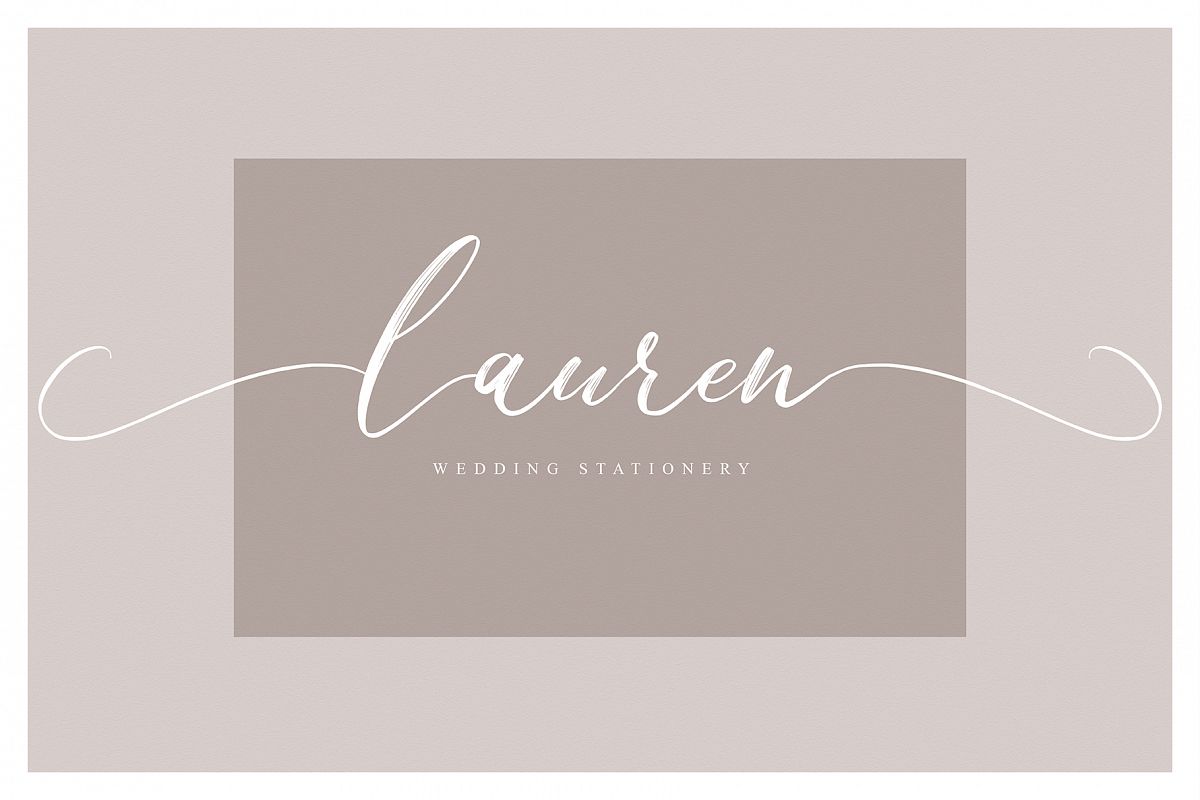
Shine Yolk
This handwritten brush font is especially for you if you need to add tenderness to your project. Combine it with other fonts and add style in your project. This handwritten font is ideal for branding and decorate your any project.This font are perfect for wedding invitation or your blog. Also with their help, you can create a logo or beautiful frame for your home. Or just use for your small business, book covers, stationery, marketing, magazines and more.What you get?Shine Yolk Script - OTF, TTF, WOFF and WOFF2.If you need help, just write me! Enjoy using. Kelly.
Shine Yolk
By Mellow Design Lab